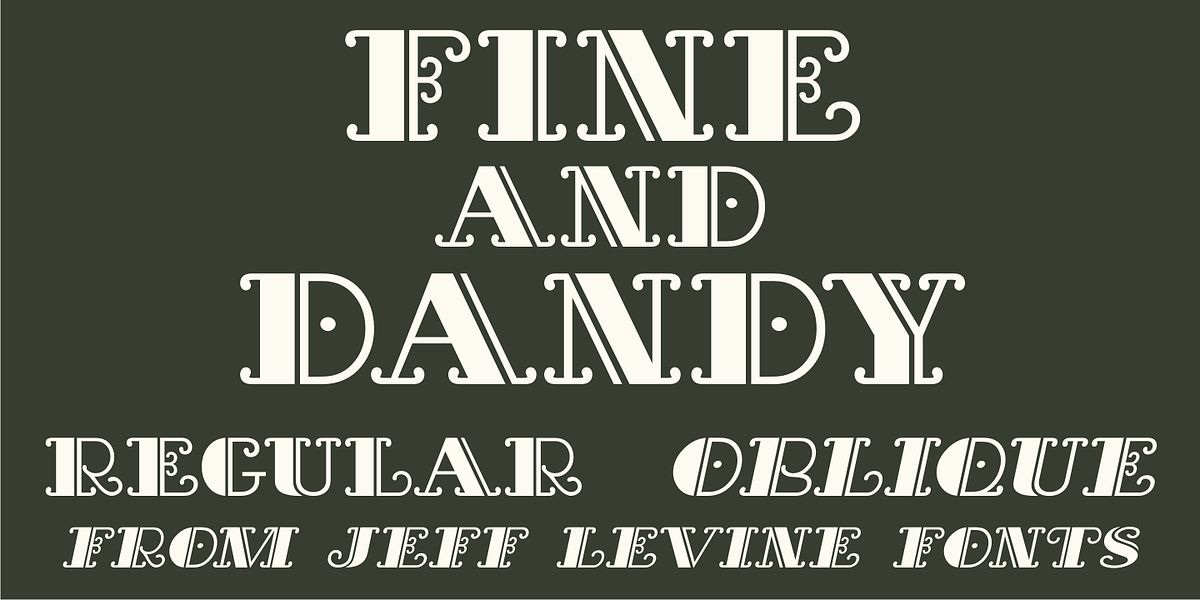
Fine and Dandy JNL
Fine and Dandy JNL comes from the hand lettered title of the 1929 movie “Isle of Escape”; found on the sheet music for its theme song “My Kalua Rose”.
An engraved and fancy Roman, the style combines elements of Western, Art Nouveau and Art Deco into one attractive type design; available in both regular and oblique versions.